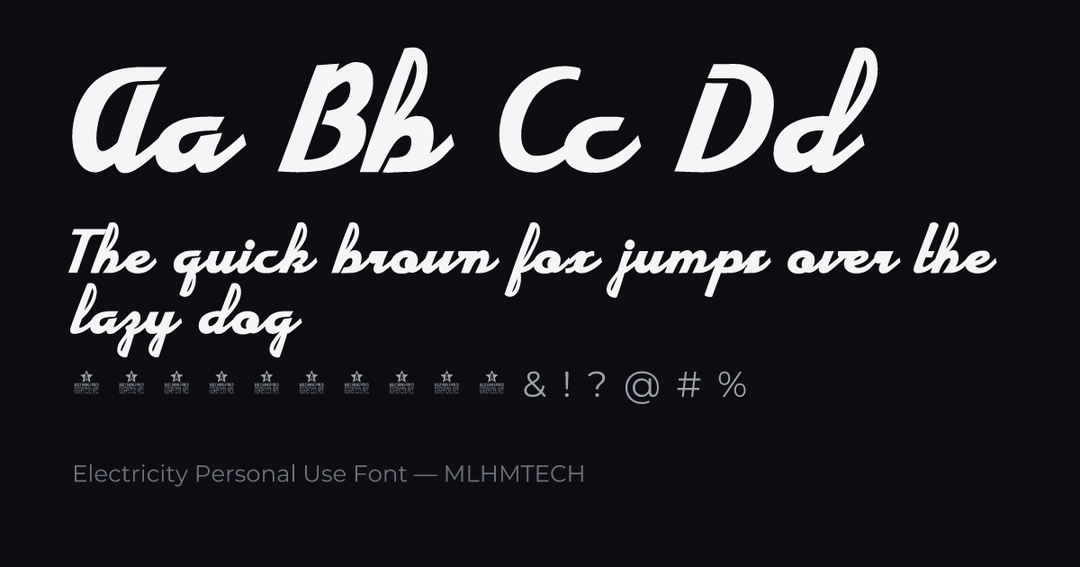
Electricity Personal Use Font
Electricity Personal Use Font is a bold, striking typeface that adds an electrifying touch to your designs. Perfect for headlines, posters, and branding.
Electricity Personal Use Font is a high-contrast display typeface with sharp edges and dynamic curves, evoking energy and power. Its unique letterforms make it stand out in any project, from posters and album covers to logos and social media graphics.
Add a jolt of creativity to your work with Electricity. Whether you're designing a music festival flyer or a tech startup logo, this font will make your text crackle with energy.